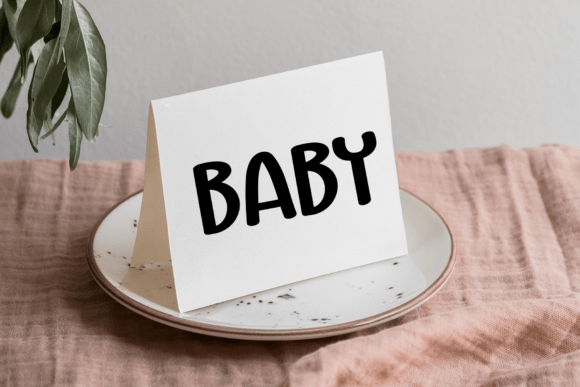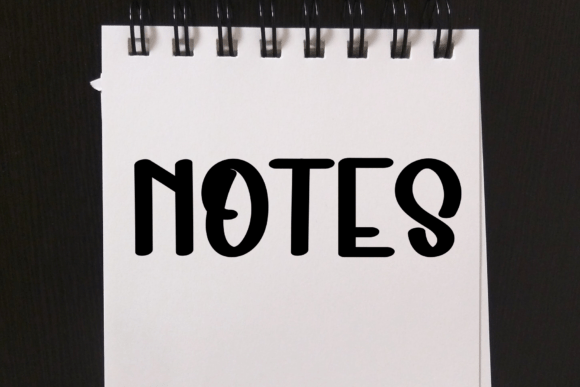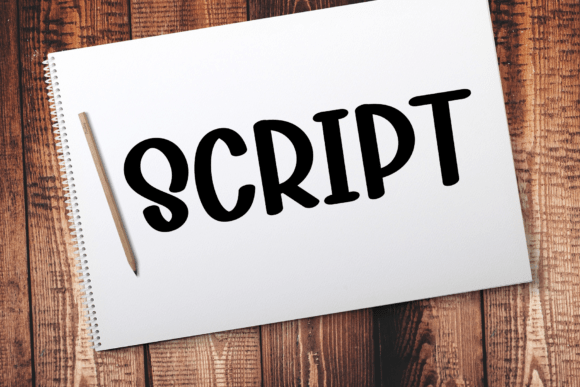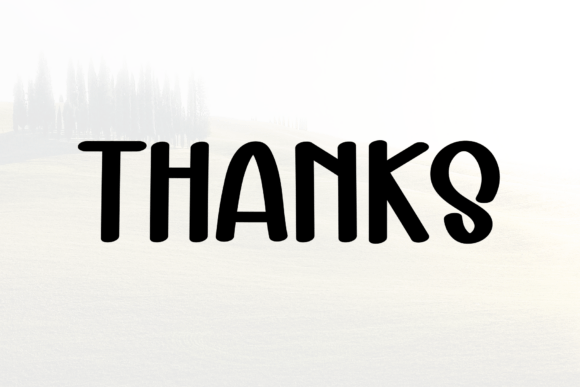
Introduction to Junior Font
Have you ever been working on a creative project, pouring your heart and soul into it, and suddenly, the perfect font pops into your mind? For designers, this moment is pure magic. It’s the spark that sets the tone for the entire project, and it’s exactly what happens when you discover the Junior Font.
This beautiful handwritten font is more than just a design element – it’s a game-changer. Its unique characters that dance along the baseline add a cozy accent to any design project, making it a valuable resource for designers who want to create high-quality and visually appealing content. Whether you’re working on a branding project, a social media campaign, or a personal blog, the Junior Font is sure to elevate your design and make it stand out.
Key Features of Junior Font
- Perfect for designers and artists looking for a unique font to add to their collection.
- Junior Font is available in 1 style and 1 weight, making it easy to use in a range of creative projects.
- Features a clean and modern design, with a resolution of 300 DPI for high-quality printing.
Honest Review: Junior Font
I recently had the chance to work with the Junior Font, and I have to say it’s a solid addition to any design project. This free download is perfect for creatives looking for a high-quality, easy-to-use font. ✨ The Junior Font’s clean design and transparent background make it a great choice for backgrounds, headings, and even body text.
- Easy to read and use, even at small font sizes
- Works well with a variety of color schemes and backgrounds
- May not be suitable for highly technical or complex text
- Lack of bold and italic variations may limit its use in certain situations
Overall, I’m impressed with the Junior Font’s versatility and ease of use. While it may not be the best choice for every project, it’s a great addition to any design resource library. With its transparent background and clean design, it’s perfect for creatives looking for a high-quality, free font.
Junior Font
The Junior Font is perfect for creative projects that require a high-quality, transparent background font.
Some common use cases include:
1. Social media graphics
2. Branding materials
3. Print designs